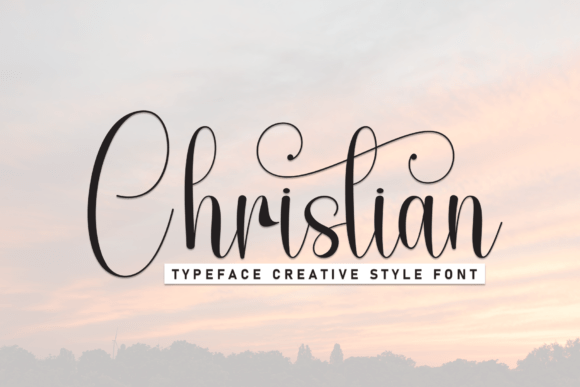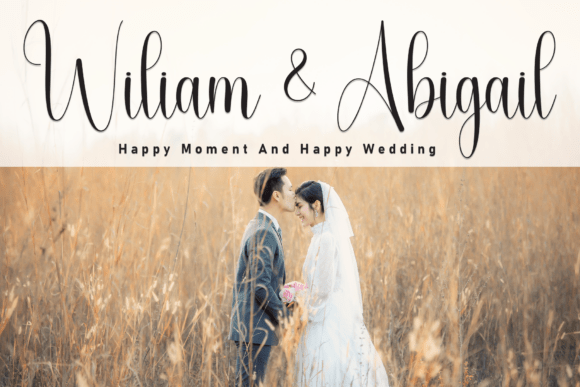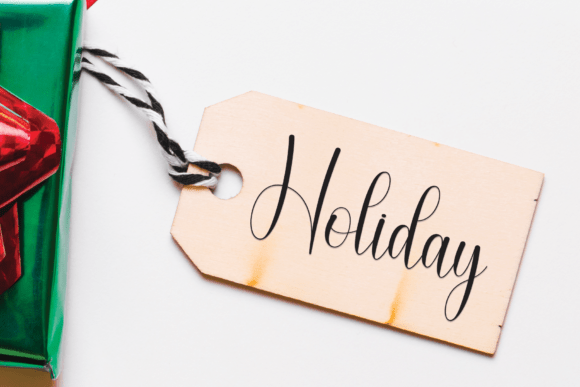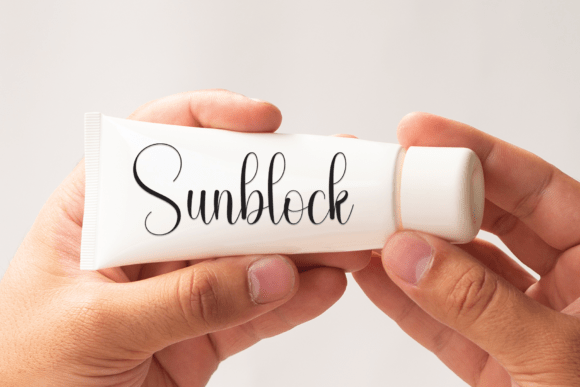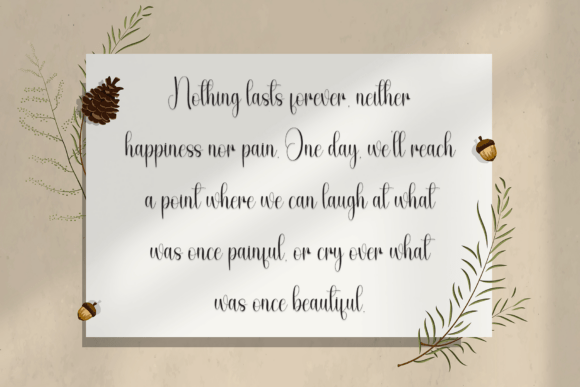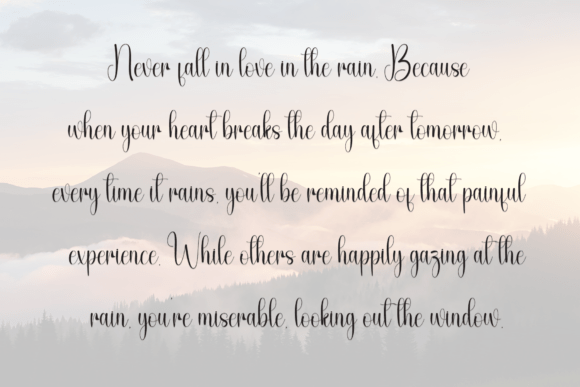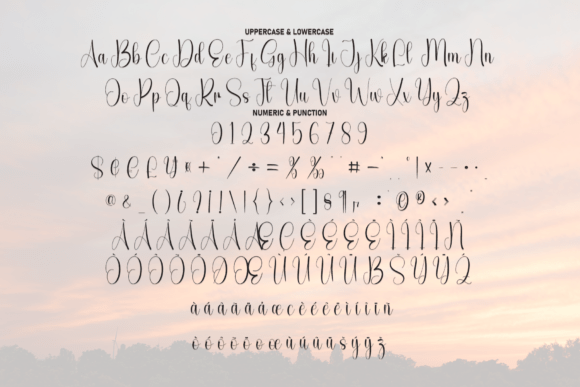
The Perfect Brush Stroke: Unveiling Christian Font
Remember the moment when you first saw a beautiful hand-painted sign or a customized wedding invitation that made your heart skip a beat? The intricate details, the flowing script, and the artistic flair all combined to create a truly unique and captivating visual experience. That’s exactly what Christian Font aims to achieve – a perfect blend of artistry and elegance in every letter.
As a stylish script font, Christian Font is designed to add a touch of sophistication to your designs. Whether you’re creating logos, invitations, packaging, or social media graphics, this font is sure to deliver. With its fluid brush strokes and dynamic curves, Christian Font captures the essence of hand-painted calligraphy with a modern twist, making it a valuable addition to any designer’s toolkit.
Key Features of Christian Font
- Unique Characteristics: Christian Font features a unique blend of modern and traditional elements, with intricate details and ornate flourishes, making it perfect for formal and decorative purposes.
Christian Font Review
I recently had the chance to work with the Christian Font, and I must say it’s a decent addition to any designer’s toolkit. Here’s my honest review.
- Unique aesthetic: The Christian Font has a distinct, elegant feel that’s perfect for projects requiring a touch of sophistication.
- High legibility: The font is easy to read, even at smaller sizes, making it suitable for body text and headlines.
- Support for various languages: Christian Font covers a wide range of languages, including Latin, Cyrillic, and Greek scripts.
- Limited expressiveness: The font’s elegance can also make it feel somewhat generic or unremarkable in certain contexts.
- No bold or italic variations: The font’s standard weight is the only option available, which might limit its versatility.
- Not suitable for modern or bold designs: The Christian Font’s classic feel might clash with more modern or edgy designs.
Overall, the Christian Font is a solid choice for designers who need a reliable, elegant font for their projects. However, it may not be the best fit for those seeking a more expressive or modern look.
The Christian Font is commonly used in:
– Church bulletins and newsletters
– Sermons and devotionals
– Christian event promotions and flyers
– Personalized Bible study materials
– Inspirational quotes and graphics